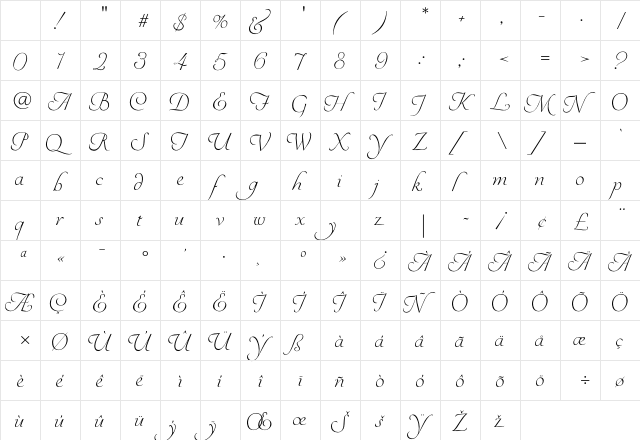
Complete YoureInvited Regular glyph index. Displaying only characters natively supported by YoureInvited Regular font.
YoureInvited is a composed and adaptable typeface that performs quietly and consistently across a wide range of design contexts.
Who designed the YoureInvited Regular font?